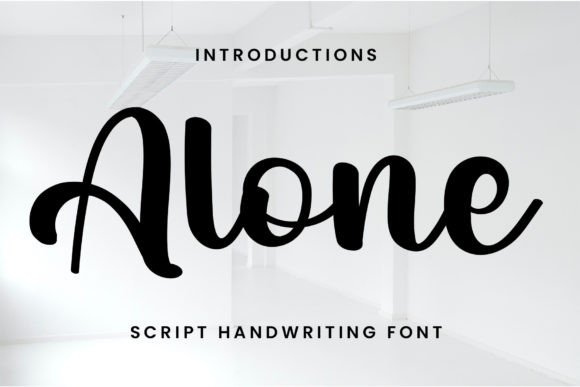
The Elusive Perfect Font: My Journey with Alone Font
Ah, the quest for the perfect font! As designers, we’ve all been there – stuck on a project, pouring over font libraries, and still, nothing seems quite right. I recall a particularly frustrating experience while working on a wedding invitation design. My client wanted something elegant, modern, and unique, but I just couldn’t find the right fit. That’s when I stumbled upon Alone Font, and it quickly became my go-to for a wide range of design projects.
An Honest Review of Alone Font
So, what makes Alone Font so special? Let’s dive into the good stuff and, of course, a few quirks I’ve encountered.
• ✨ Beautifully Refined Handwritten Style: Alone Font boasts a classy, modern look that’s perfect for logos, branding, invitations, and more.
• ✅ PUA Encoding: This font is PUA encoded, making it easy to access all the amazing glyphs and ligatures.
• 💫 Versatility: Use it for social media posts, stationery, wedding designs, or any project that requires a touch of elegance.
While Alone Font is fantastic, there are a few things to keep in mind:
• ⚠️ Glyph Overload: With so many glyphs and ligatures available, it can be overwhelming to navigate. Take some time to explore the font, and you’ll get the hang of it!
• 🤔 Pairing Challenges: As with any script font, pairing Alone Font with other fonts can be tricky. Experiment with different combinations to find the perfect match.
The Story Behind Alone Font
While the true story behind Alone Font remains a mystery, it’s easy to imagine a designer pouring their heart and soul into crafting such a beautiful, refined handwritten font. Perhaps they were inspired by the romance of handwritten letters or the elegance of calligraphy. Whatever the inspiration, Alone Font is a testament to the power of typography in design.
Font Name Alone Font
Author Bintang Studio
PUA (Private Use Area) encoding allows font creators to include additional glyphs and characters that aren’t part of the standard Unicode range. This means users can access a wider range of glyphs, ligatures, and stylistic alternates, making the font more versatile and useful.
Q: Can I pair Alone Font with other fonts?
Pairing Alone Font with other fonts can be a great way to add contrast and visual interest to your designs. Experiment with different font combinations to find the perfect match for your project.